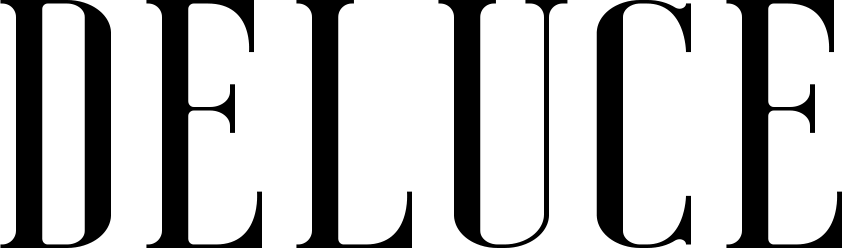
Deluce Font
Want to create an authentic and established sense to your writing project, never underestimate this professional serif font. Deluce font with two different versions is available to bring a satisfactory result of your writing experiment with its edgy end design on each letter.
Despite the lack of lowercase letters and numbers, it can make your typography stand out from the crowd. This luxury font is possible to use for writing any advertisements, magazines, posters, books, and other printed designs as an extraordinary opportunity.